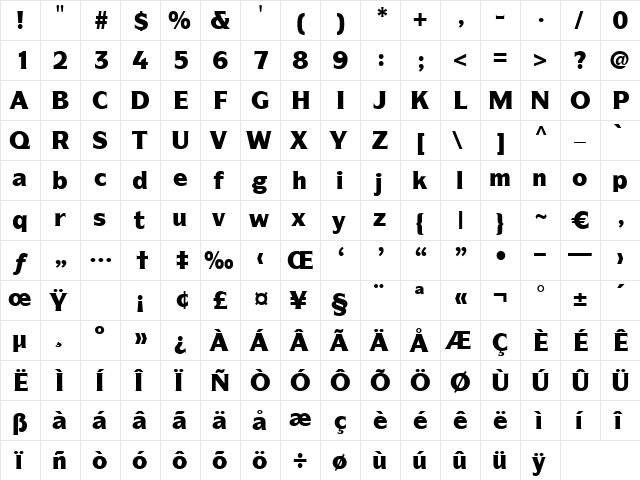
Antalya Regular
Design Context for Antalya Typeface
Antalya offers clean, dependable letterforms without strong stylistic allegiance, making it a practical choice for designers who need flexibility.
Pro Tip: Use Antalya in both headline and body roles to test its range before committing to a single application.